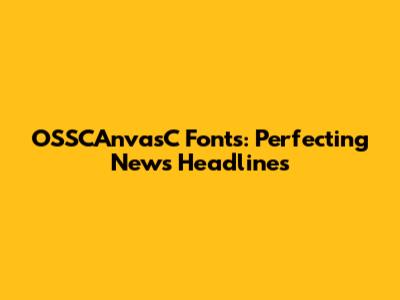
OSSCanvasC Fonts: Perfecting News Headlines
Hey guys! Ever wondered what makes a news headline grab your attention instantly? Sure, the story matters, but the font plays a huge role too. That's where OSSCanvasC fonts swoop in to save the day! They're like the secret weapon for crafting headlines that are both eye-catching and easy to read. Let's dive deep and explore why these fonts are a fantastic choice for news headlines, and how they can seriously level up your content game. We'll look at the specific features that make them stand out, compare them to other popular font options, and even give you some tips on how to use them effectively. Get ready to transform your headlines from blah to WOW!
Why OSSCAnvasC Fonts are a Headline Hero
OSSCanvasC fonts aren't just any fonts; they're designed with a purpose: to make headlines pop! They're built for clarity, impact, and a touch of modern flair. The primary goal is to provide maximum readability, especially when displayed at larger sizes, which is typical for headlines. These fonts often boast a robust design, allowing them to withstand various display conditions without losing legibility. You'll often find a combination of features working in harmony, such as distinctive letterforms, balanced proportions, and optimized spacing. These elements ensure that the headlines are not only visible but also inviting, encouraging readers to delve deeper into the content. They are perfect for a variety of media like online articles, print publications, and even social media graphics. One of the main reasons they excel is their versatility. Whether you're working on a breaking news story, a feature article, or a special report, OSSCanvasC fonts can adapt to the tone and style of your content. They're designed to communicate the essence of the news concisely and effectively. They are designed with readability in mind, and that's critical in the fast-paced world of news where readers often scan headlines quickly. The best headlines are clear, concise, and instantly understandable, and the right font helps achieve that. When choosing a font for your headlines, consider how well it supports your message and overall design. Think about the impact you want to create and whether the font's characteristics align with your brand's identity. Remember, a well-chosen font can make a significant difference in how your audience perceives your content. These fonts are often chosen to reflect a modern aesthetic, aligning with the current trends in design and typography. This can help news outlets project a contemporary image, attracting readers who are drawn to modern design. The font's design choices influence how readers perceive a news outlet's professionalism and attention to detail. So, choosing a font that embodies these values can significantly enhance your news presentation, making your headlines more effective and your content more engaging.
Readability and Visual Appeal
Alright, let's get into the nitty-gritty of why OSSCanvasC fonts are so awesome. First off, they're built for readability. You know, when a headline is clear and easy to read at a glance? That's the magic of these fonts. They often feature clean lines, open counters (the spaces within letters like 'e' and 'o'), and a generous x-height (the height of the lowercase 'x'), all of which work together to make the text super easy on the eyes, even at a distance or on smaller screens. But it's not just about being easy to read; it's also about looking good. These fonts have a certain visual appeal that grabs your attention. Maybe it's the subtle curves, the balanced proportions, or the modern design – whatever it is, they make headlines look professional and inviting. Visual appeal is important because it is the first thing that catches a reader's eye. If the font doesn't look appealing, the reader might skip over the headline. You want readers to stop and take notice, and that's exactly what OSSCanvasC fonts help you achieve. They're not just functional; they're also stylish. The design choices behind these fonts often reflect current trends and aesthetic preferences. This gives your headlines a contemporary feel, which is important, especially when news outlets are competing for readers' attention in a saturated media landscape. The font should communicate the information quickly and effectively, ensuring that readers understand the main message. It’s all about creating a positive first impression. When headlines are visually appealing, they attract more clicks, shares, and engagement. Moreover, the visual characteristics of the font also play a significant role in conveying the tone and mood of the news. For instance, a font with a bold and strong appearance may be used for hard news stories, while a softer, more rounded font could be appropriate for feature articles. Ultimately, the visual appeal of a font is directly related to its ability to engage readers and prompt them to explore further.
Features and Design Elements
Okay, let's break down the features and design elements that make OSSCanvasC fonts so special. First, there's the legibility. These fonts are crafted to be crystal clear, even when scaled up for headlines. This is often achieved through a combination of well-defined letterforms, appropriate spacing, and careful consideration of the overall design. When choosing a headline font, legibility should always be at the top of your list. You want readers to understand the headline instantly, without having to squint or strain their eyes. The letterforms themselves are often designed with clarity in mind. Features like open counters, distinctive shapes, and generous proportions all contribute to the font's readability. These fonts generally offer excellent kerning (the space between individual characters). Proper kerning helps prevent letters from appearing cramped or too far apart, ensuring that the words flow smoothly and are easy to read. The overall style of these fonts tends to lean towards a modern aesthetic. They often have clean lines, geometric shapes, and a minimalist design. This is a deliberate choice because it keeps the focus on the content and makes the headlines look clean and professional. The use of different weights, from light to bold, also gives you more flexibility to create visually interesting headlines. You can use a bolder weight for the main headline and a lighter weight for a subtitle or a call-to-action. Font design can include a variety of different character styles. This helps in crafting headlines that are not only readable but also expressive. Many of these fonts have a good range of stylistic options, which allows you to customize the look and feel of your headlines to suit your brand or the specific needs of your news story. This includes variations like italics, condensed versions, or even special characters.
Comparing OSSCAnvasC Fonts with Other Options
So, how do OSSCanvasC fonts stack up against the competition? Let's take a look at some popular alternatives and see how they fare in the news headline game. We'll cover the pros and cons of each, helping you decide which font is the best fit for your needs. It's not a one-size-fits-all situation, and the perfect font often depends on the specific project, the desired tone, and the overall design aesthetic. Understanding the advantages and disadvantages of each option will give you a better understanding of the fonts. Some of the most common fonts used for news headlines are Times New Roman, Arial, and Helvetica. While these fonts are generally safe choices, they can sometimes feel a bit generic. Their widespread use can result in headlines that lack a unique visual identity, and in a world where headlines have to stand out, this can be a disadvantage. Other fonts like Open Sans, Roboto, and Montserrat are popular for their modern feel and excellent readability. They work very well on digital platforms and provide a clean, contemporary look. However, it's worth noting that some of these fonts might lack the distinctive character and visual impact that OSSCanvasC fonts often bring. There are also serif fonts, like Georgia and Playfair Display, which are often used for headlines. Serif fonts can convey a sense of tradition and authority, which is great for certain types of news stories. But, they might not always be the best choice for a sleek, modern look. The best font depends on your specific needs, the context of the news, and what your goals are. Choosing a font is a decision that requires thoughtful consideration, weighing the specific characteristics and benefits of each option. When comparing, think about readability, visual appeal, and how well the font aligns with your brand. The goal is to choose a font that helps you communicate effectively and make your headlines really shine.
Serif vs. Sans-Serif
Alright, let's talk about the big showdown: serif vs. sans-serif. This is one of the biggest choices you'll make when picking a headline font. OSSCanvasC fonts are typically sans-serif fonts, which means they don't have those little strokes or